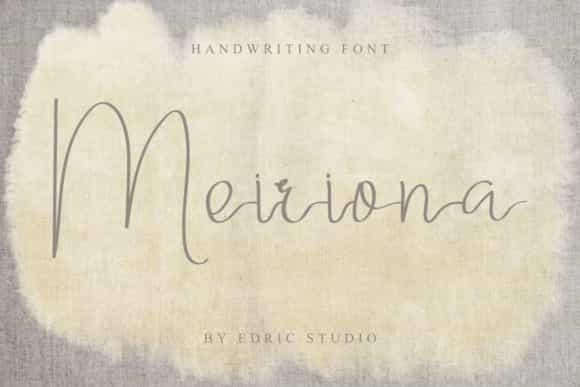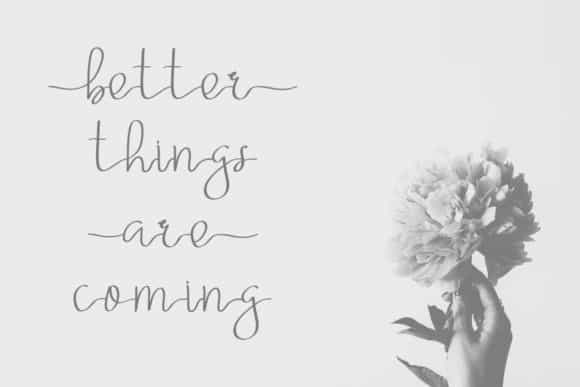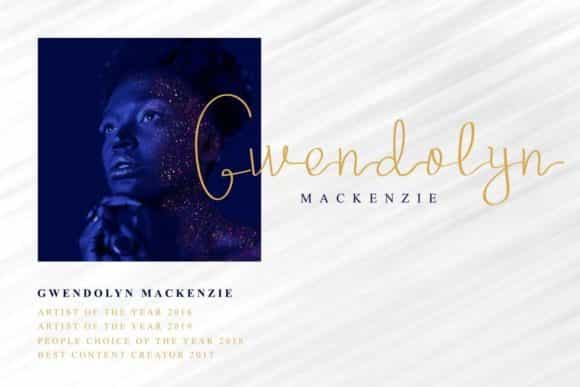
Introducing Meiriona Font. It has a classy and ladylike style which is just right to make any design look special! This font is just right for branding, wedding invitations, magazines, mugs, business cards, quotes and posters.